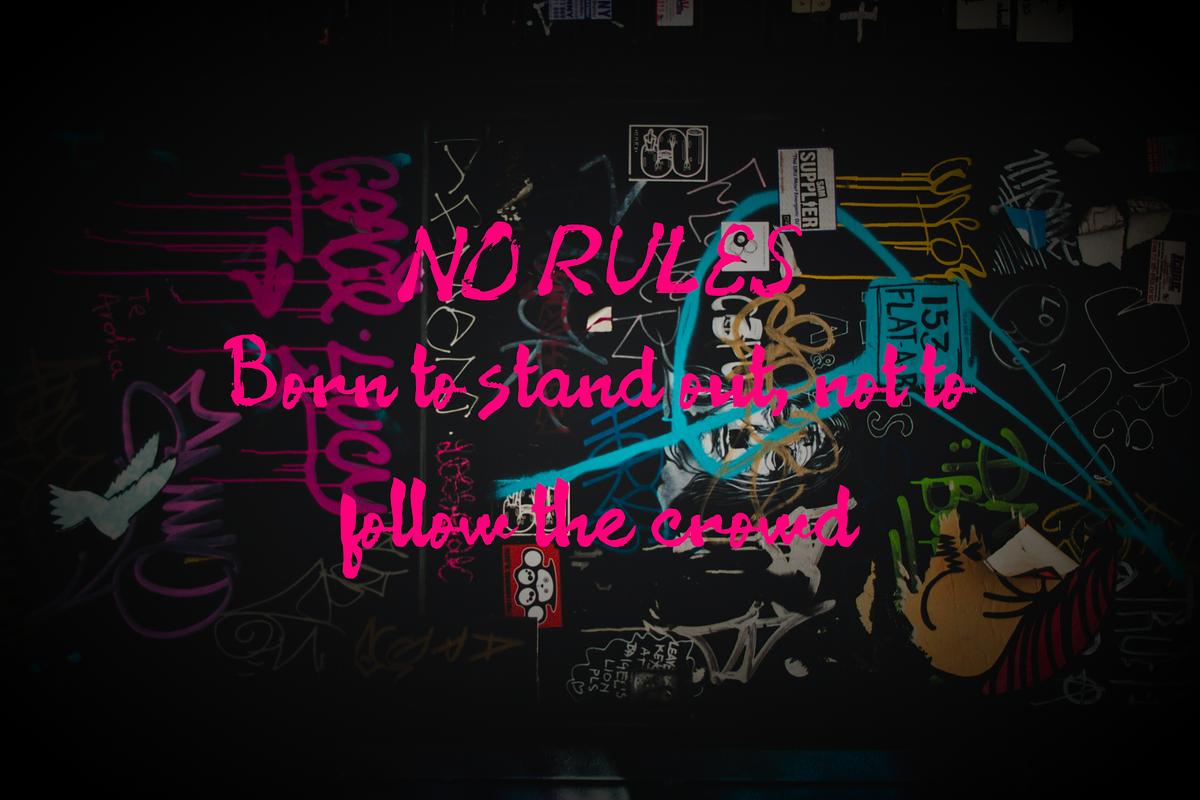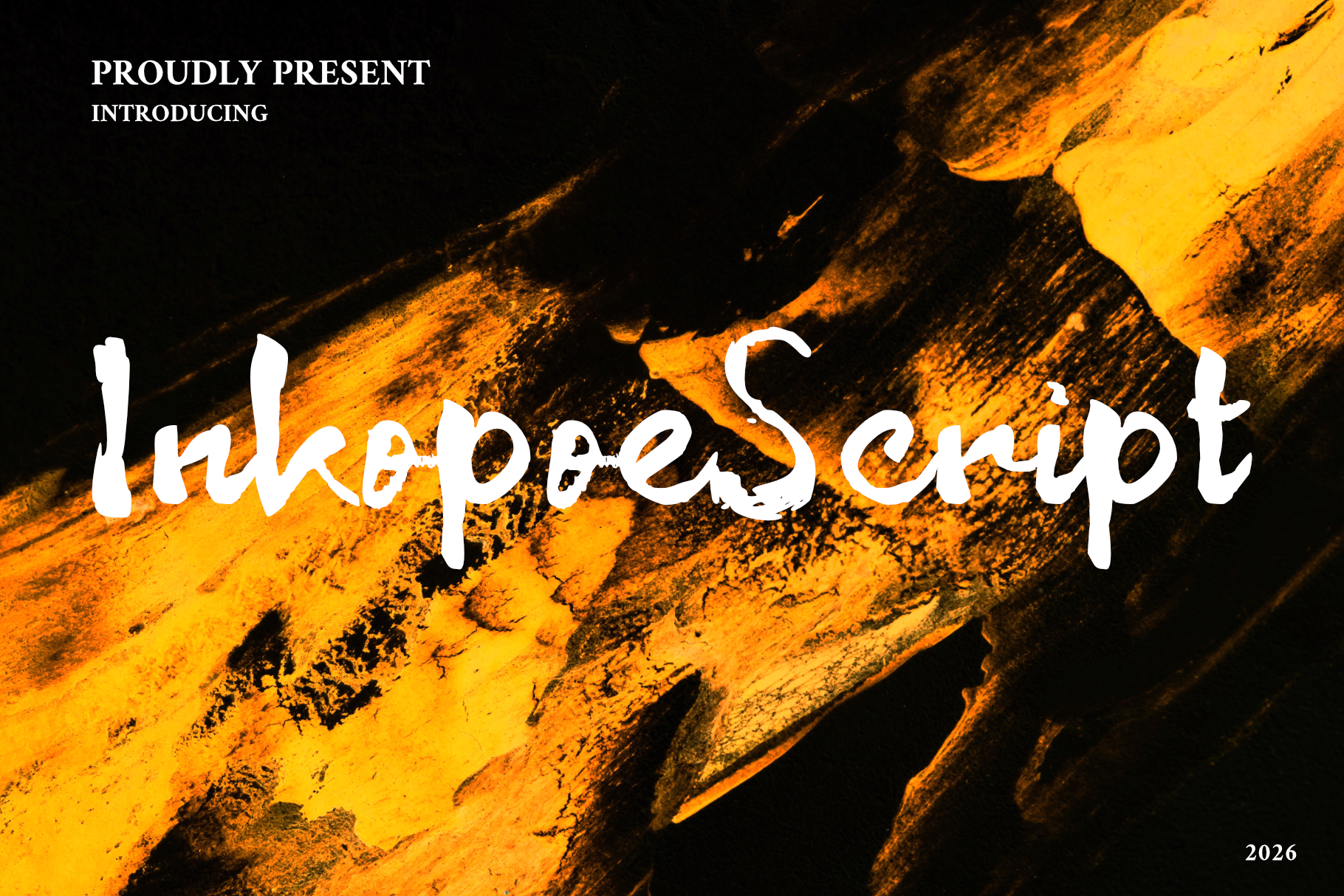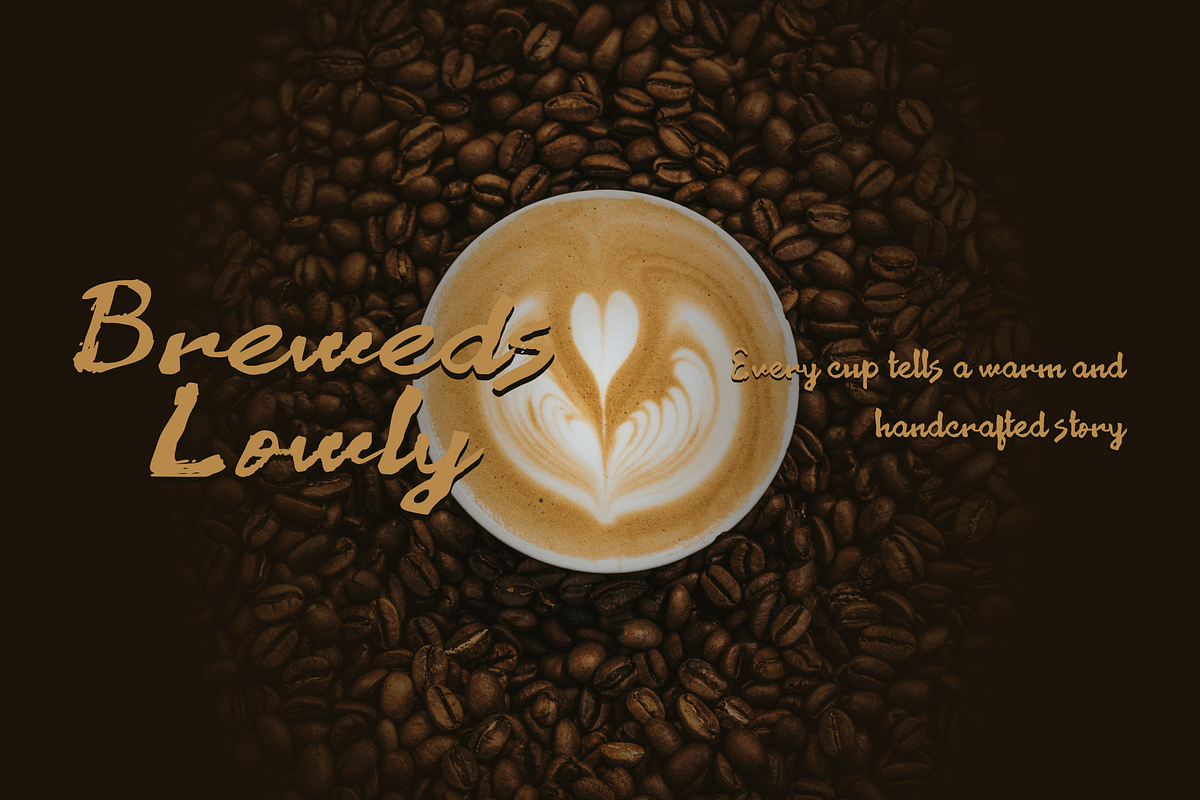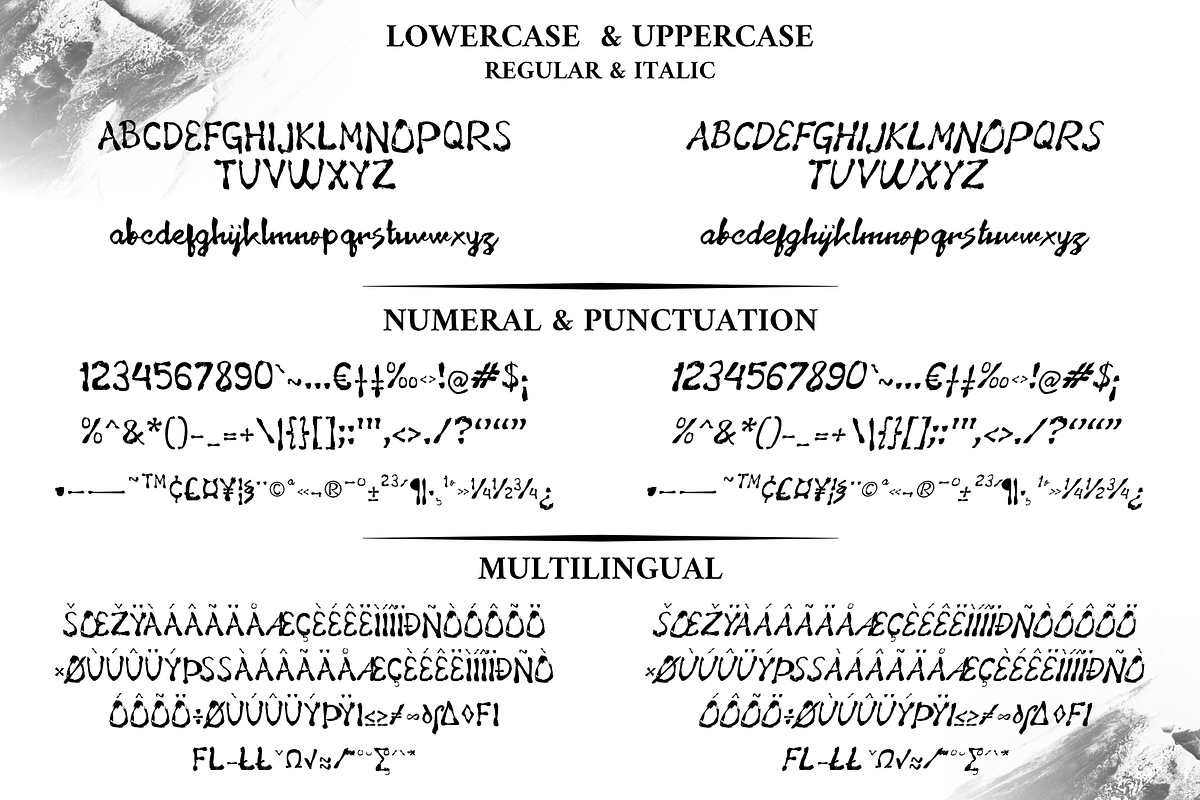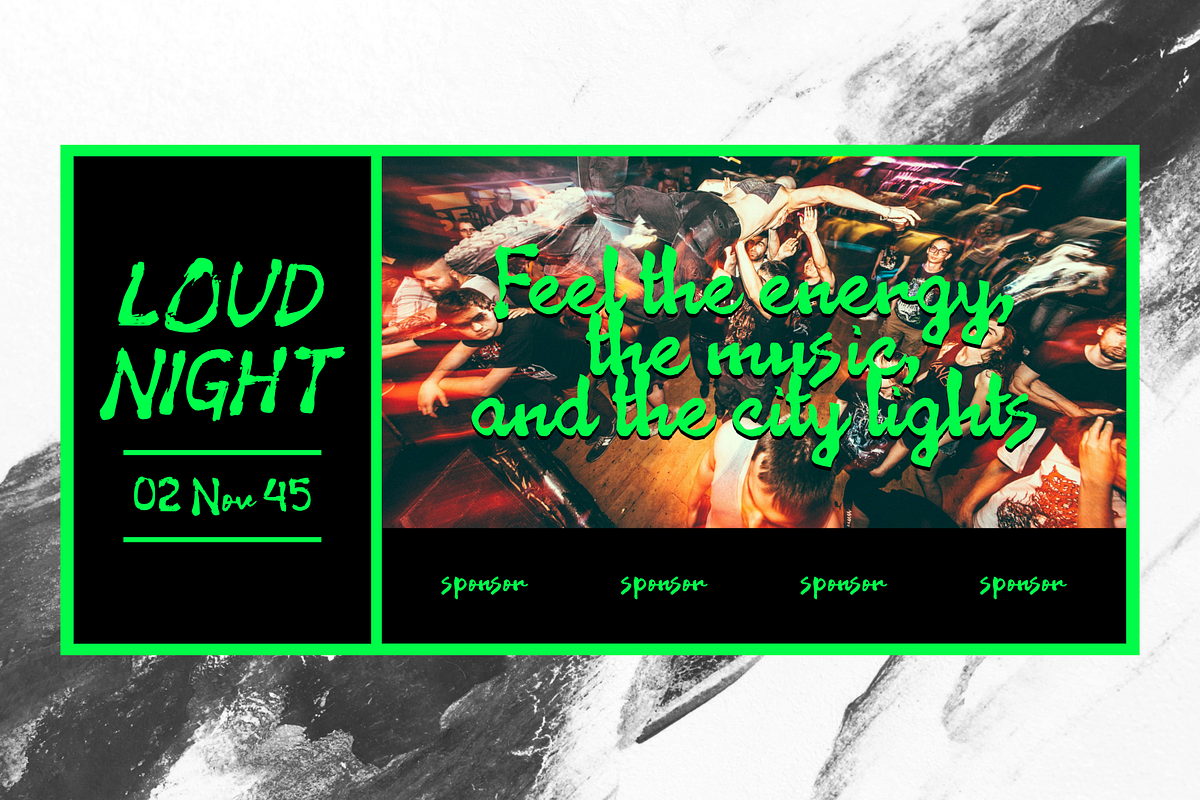
Inkopoe Script Handwritten Font
This font features a bold handwritten brush style with expressive strokes and natural ink textures, creating an authentic and artistic look. Its rough yet balanced character gives a strong urban, indie, and modern aesthetic that feels energetic, creative, and full of personality. Designed to stand out, this typeface works perfectly for streetwear branding, music posters, album covers, social media content, creative campaigns, and lifestyle designs. The dynamic brush details bring a raw handmade feel while still maintaining good readability, making it ideal for eye-catching headlines and impactful visual compositions